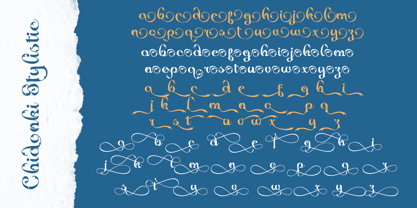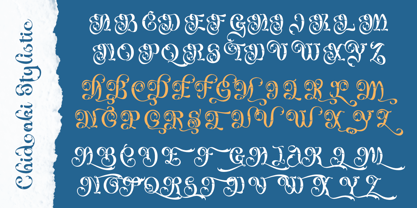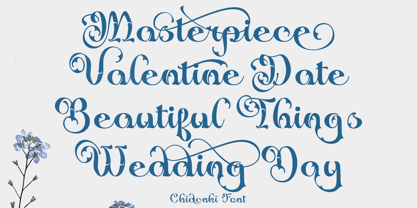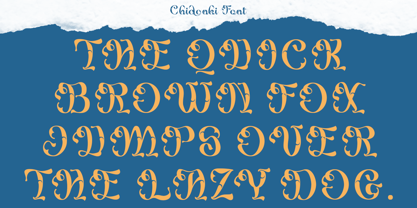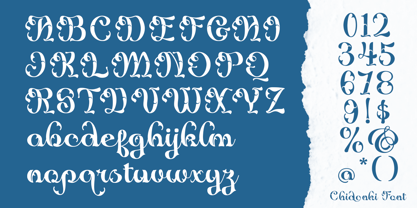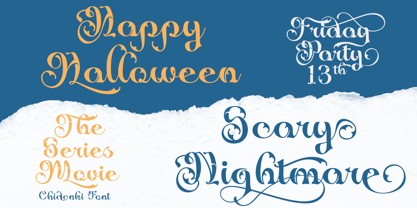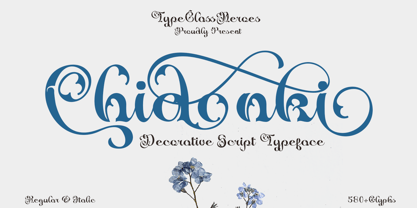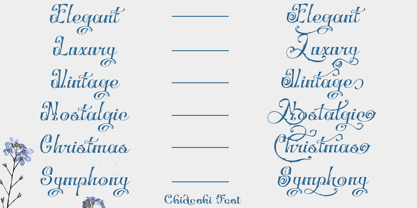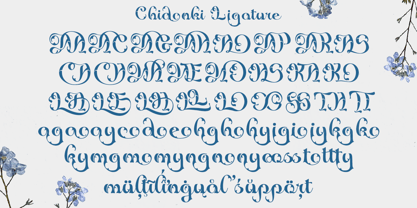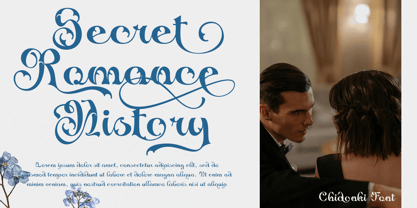
Chidonki
by TypeClassHeroes
The Chidonki Font Family was designed by Suandana ipandemade and published by TypeClassHeroes. Chidonki contains 2 styles and family package options.
Chidonki is a decorative script font will create a design that is gorgeous and still looks unique and bold with a classic touch. Easily readable, carefully creating every glyph, designing beautiful simple words with this font. Ideal for vintage logo, packaging, book cover, wedding invitation, brand identity, or anything old elegance touch.